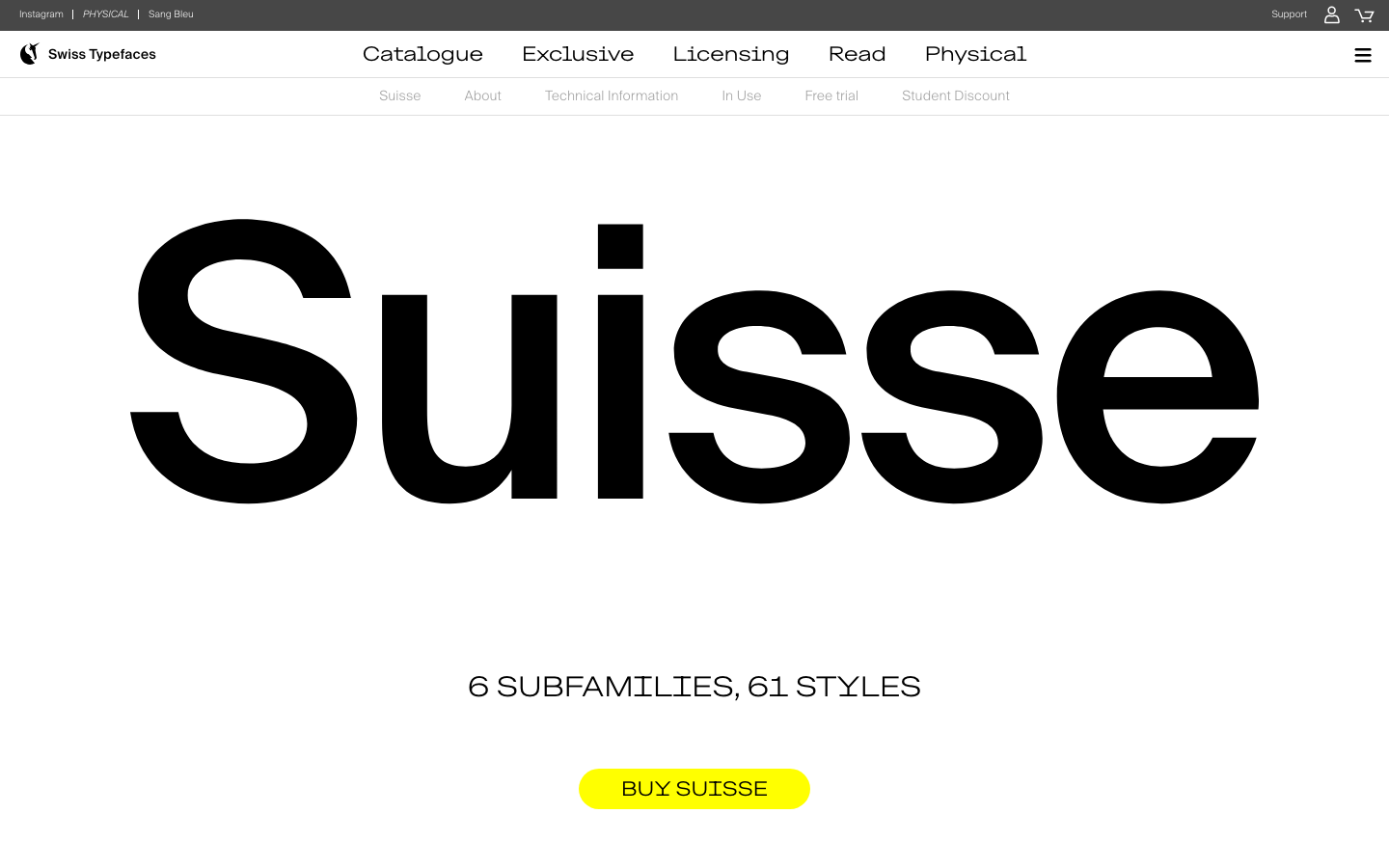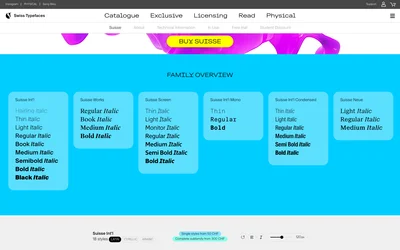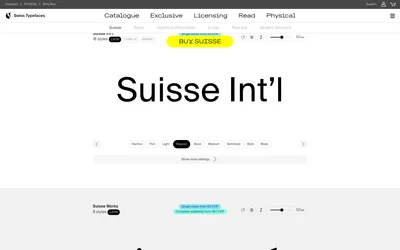
Graphik vs Suisse Int'l
Graphik and Suisse Int'l are both sans-serif typefaces sharing a neo-grotesque foundation. Compare which suits your Branding project.
| Language Support | latin, latin-extended, cyrillic | latin, latin-extended, cyrillic, arabic |
Recommended: Graphik
- modern, readable design character
- Suited for Advertising
Consider: Suisse Int'l